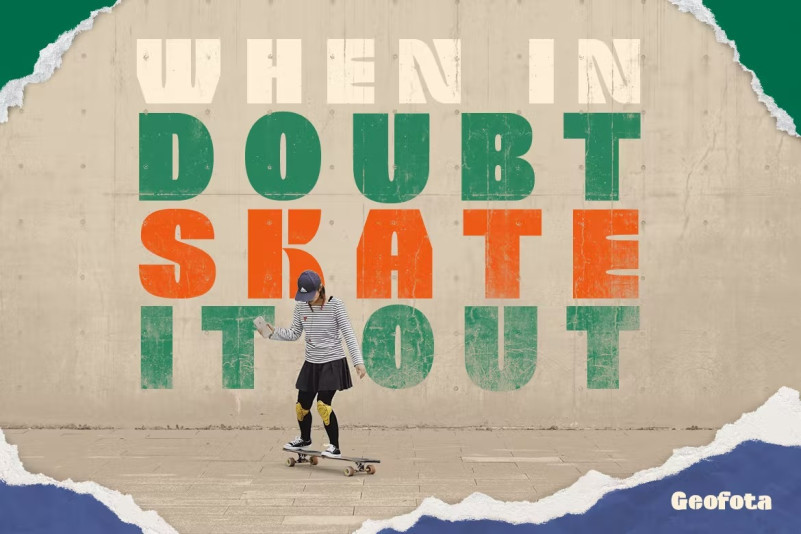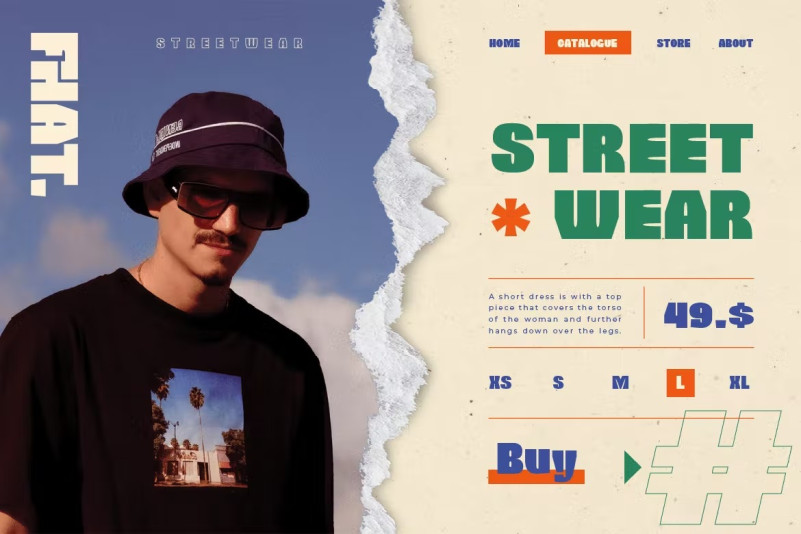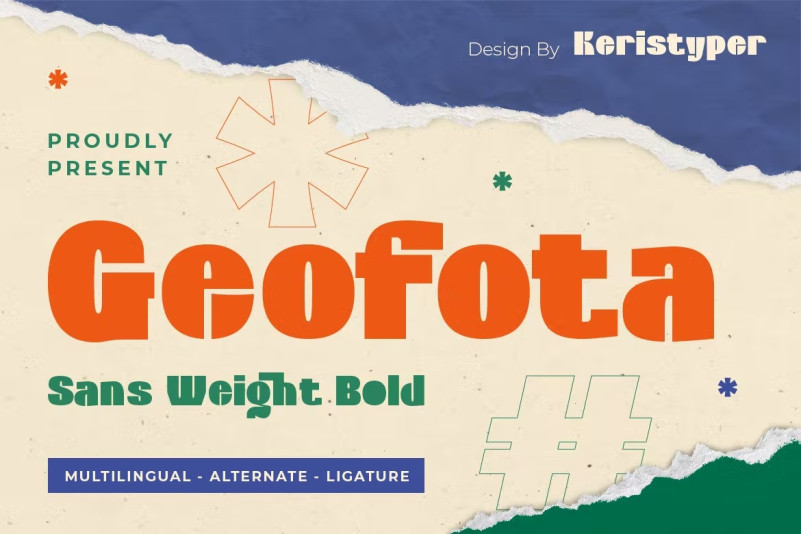
Geofota Font
Geofota is a bold and heavy modern style font inspired by urban street culture. This font is good for logo design, Social media, Movie Titles, Books Titles, short text even long text letters, and good for your secondary text font with sans or serif.